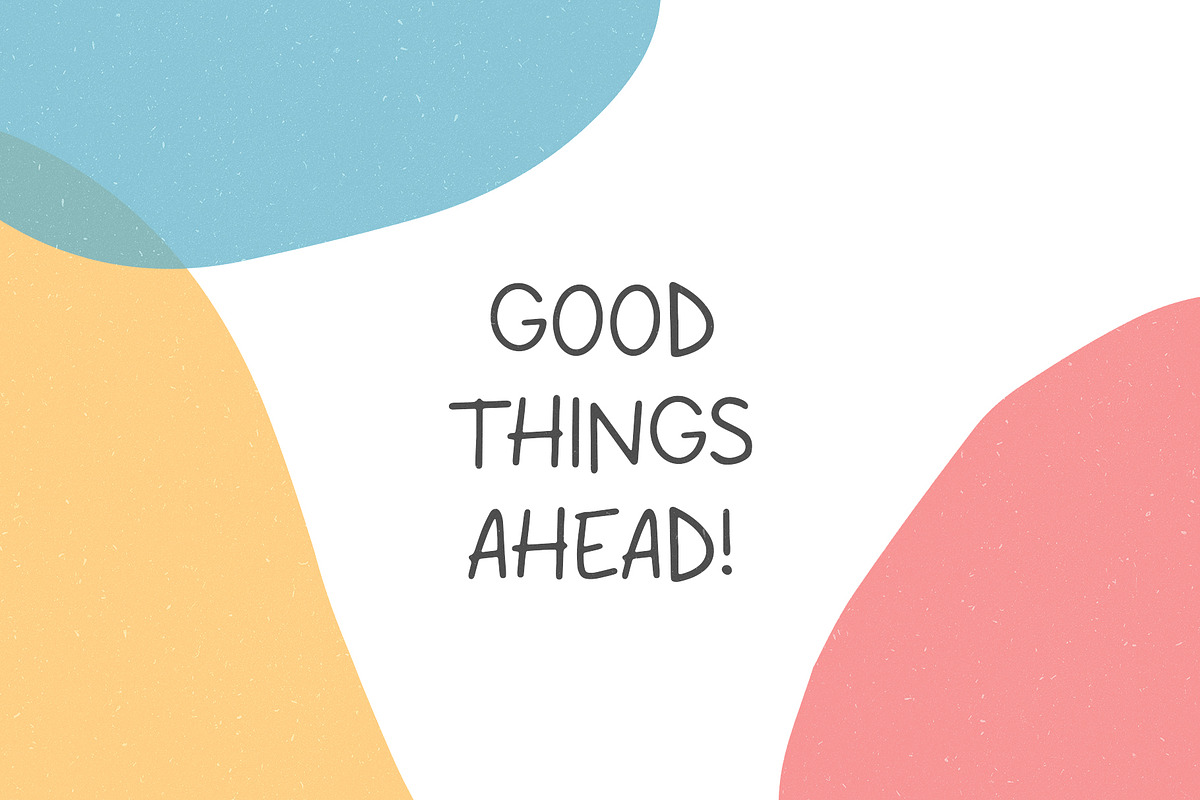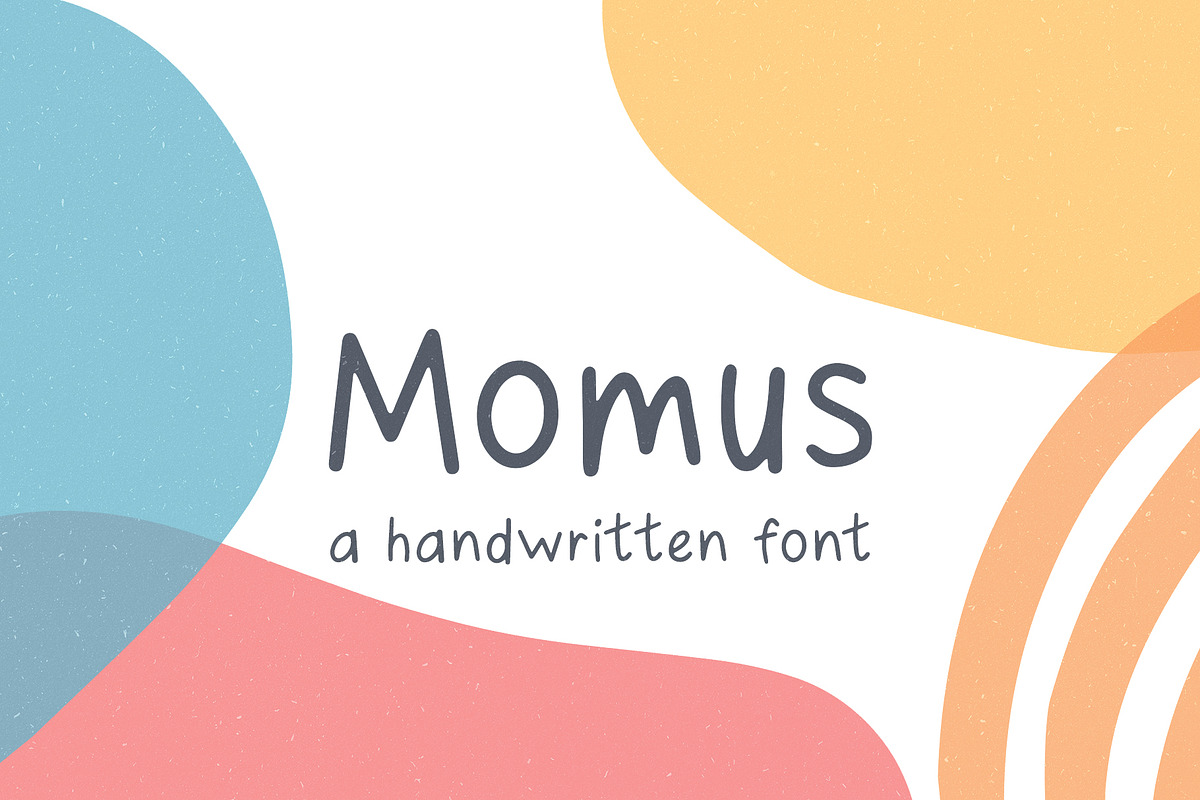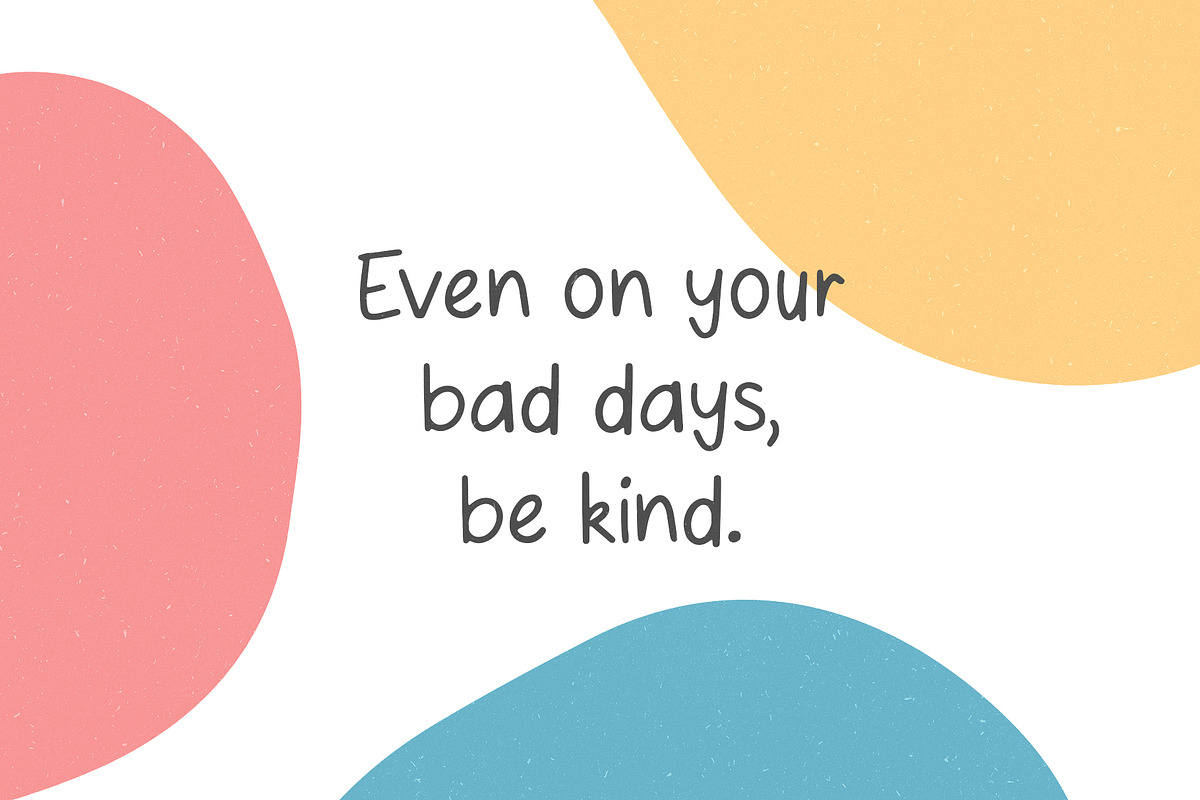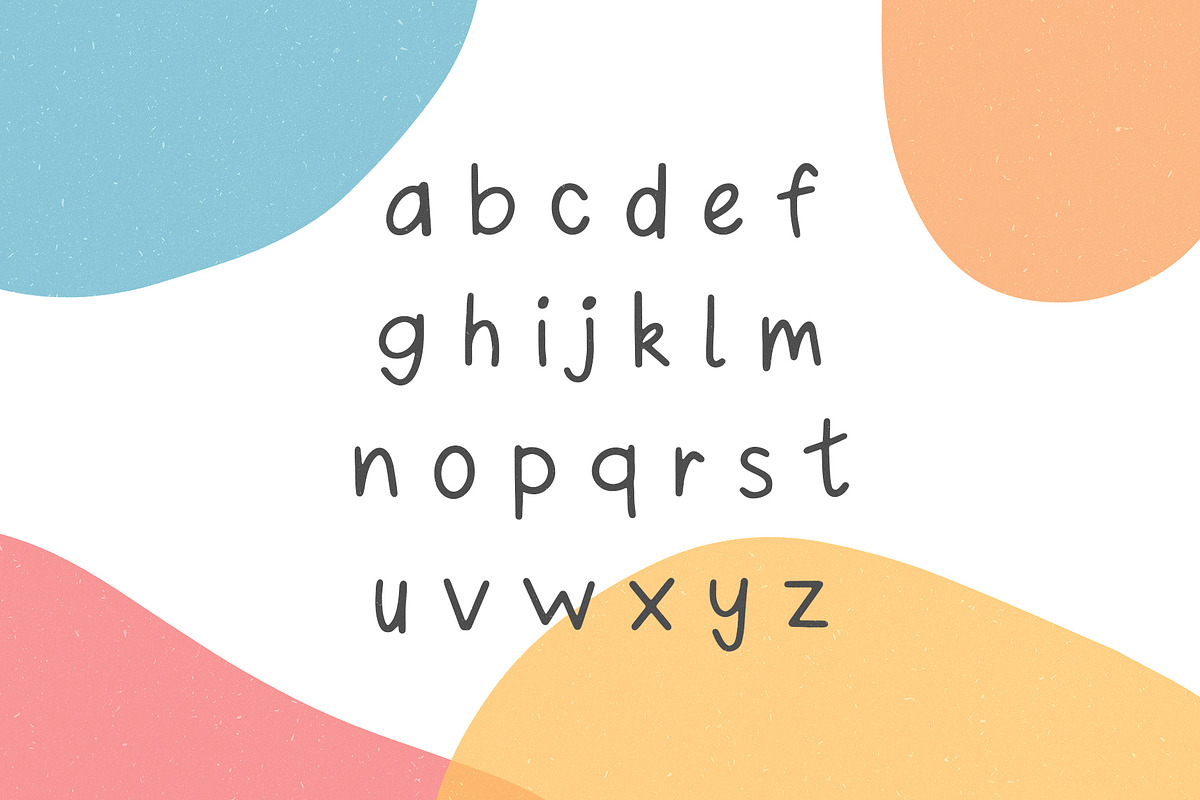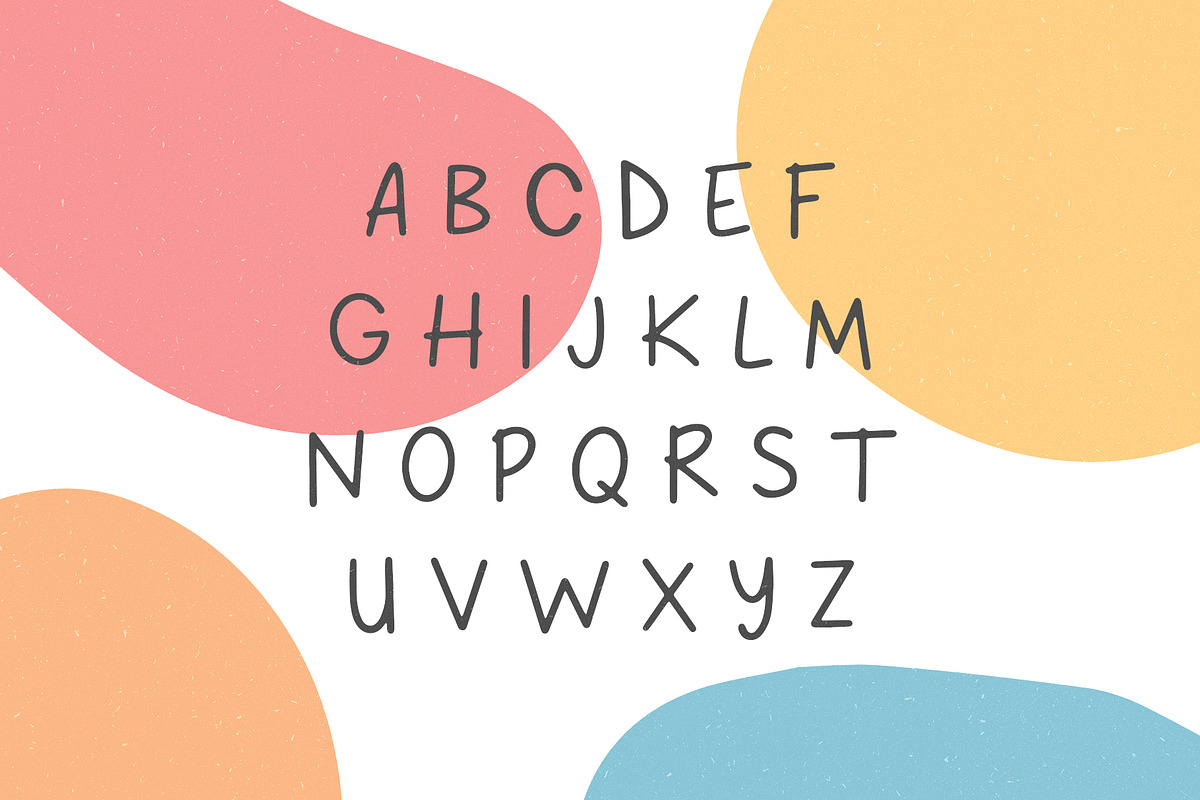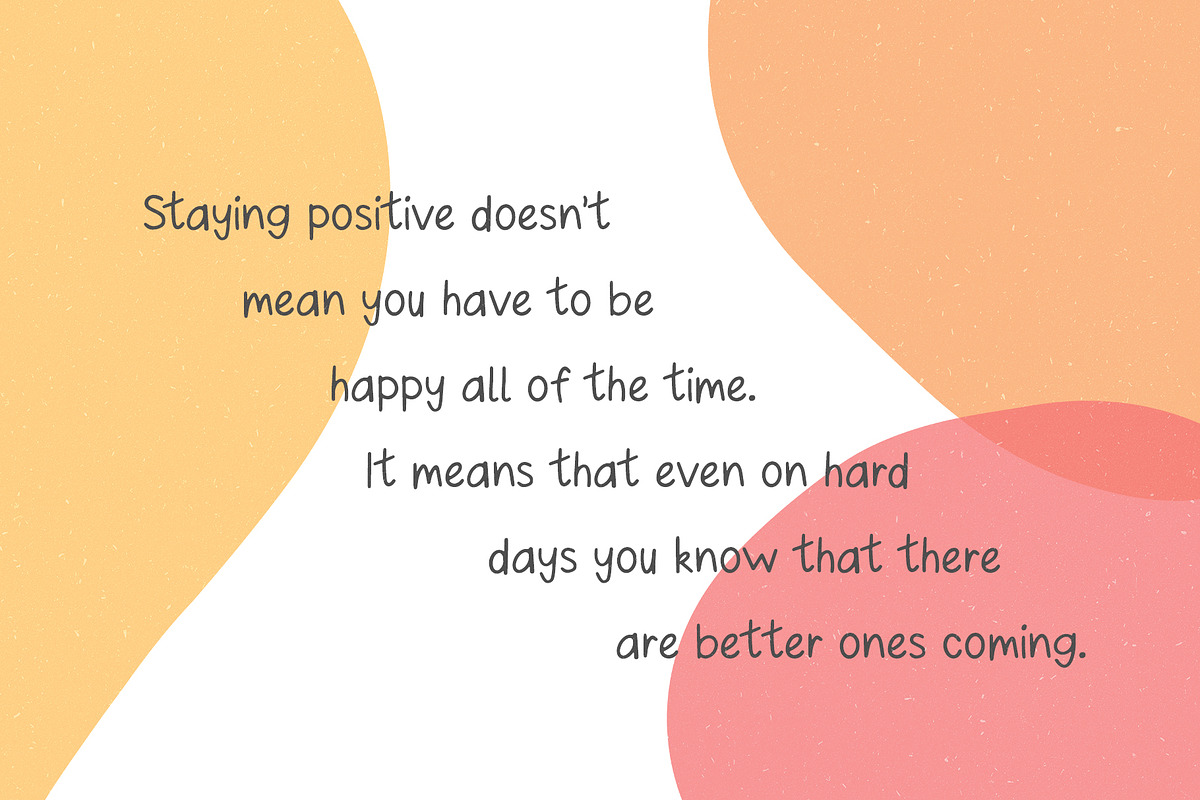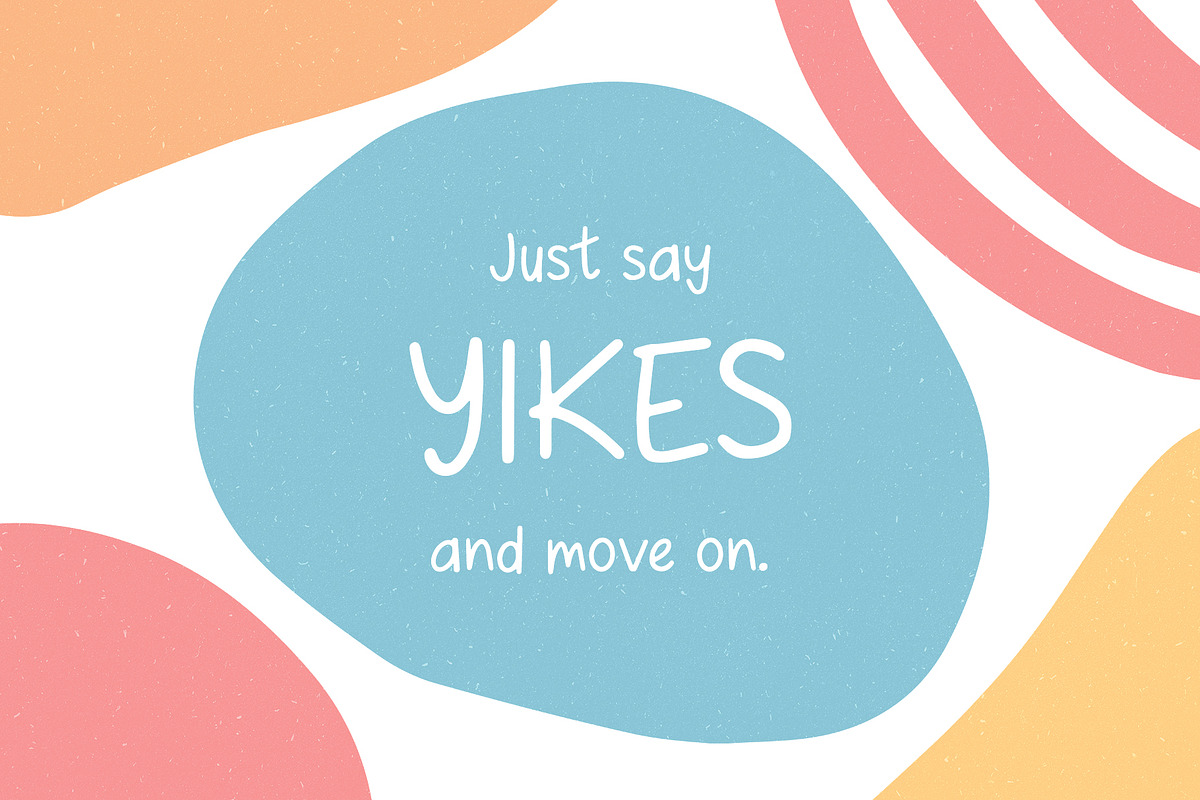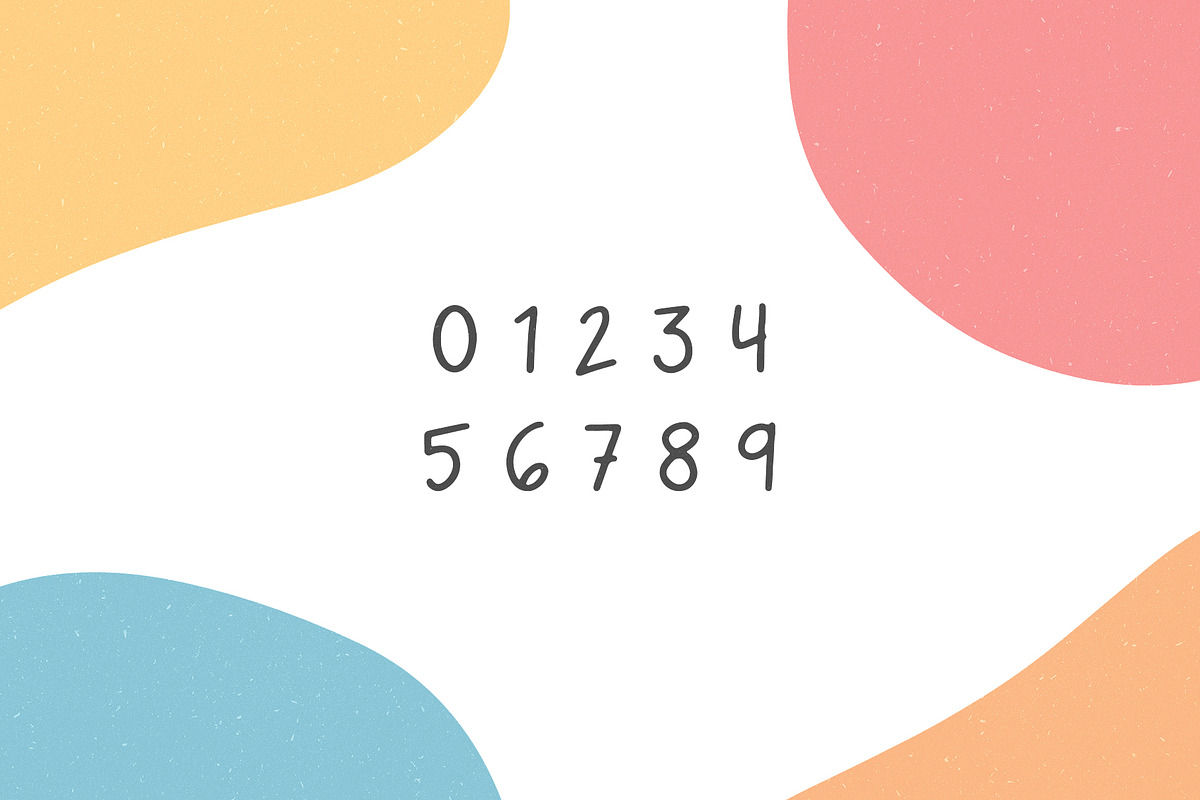
Momus // A Handwritten Font
Momus is a fun & happy, handwritten font. Perfect for social media images, creating quotes, or just adding a handwritten touch to your projects.
Upper and lowercase letters
Numbers and punctuation
Accented characters for the international designer